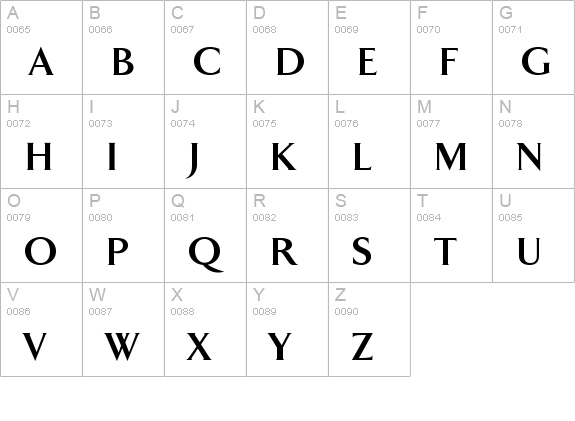
ArrowBold Font Details
ArrowBold font is a sleek and modern typeface designed to make a bold statement in any design project. Its sharp lines and pointed edges give it a dynamic and energetic feel, perfect for adding a touch of excitement to your creations. This font is versatile and can be used for a variety of purposes, from branding and advertising to web design and social media graphics. And the best part? ArrowBold font is completely free to download at FontsMarket.com. So you can elevate your designs without breaking the bank. Don't miss out on this opportunity to add a powerful and eye-catching font to your collection. Download ArrowBold today and let your creativity soar!